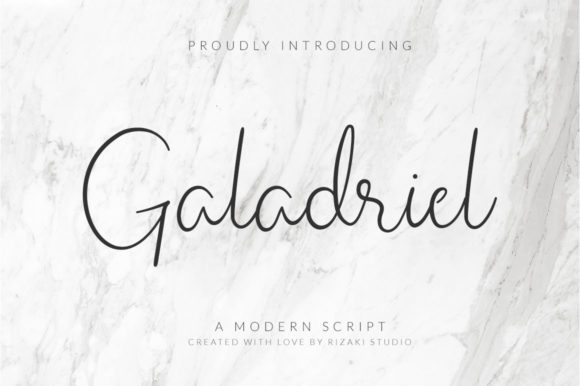
Step into a realm of captivating elegance with our exquisite Galadriel Script Font, a masterpiece crafted for thank-you cards that leave an unforgettable impression. Each stroke of this script font exudes an ethereal grace and refined charm, ready to elevate your creations to new heights of sophistication.
Indulge in the allure of Galadriel's smooth, thin lines, dancing across the page with a delicate touch. Its well-balanced curves and graceful flourishes evoke a sense of timeless beauty, making it the perfect choice for expressing your heartfelt gratitude in a way that truly resonates.
Immerse yourself in a world where artistry meets functionality. Galadriel Script seamlessly adapts to a wide range of designs, from enchanting wedding invitations to heartfelt letters that convey your deepest emotions. Whether you're crafting a thoughtful thank-you note for a special occasion or designing a whimsical masterpiece, Galadriel Script will effortlessly infuse your creations with a touch of magic.
Experience the transformative power of Galadriel Script today and unlock a world of creative possibilities. Let its delicate strokes become the canvas upon which you paint your heartfelt messages, creating a lasting impression that will be cherished forever.